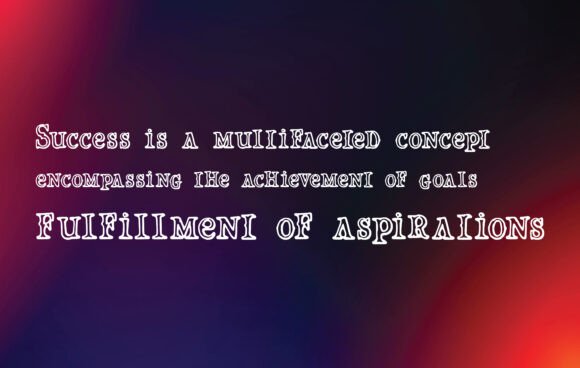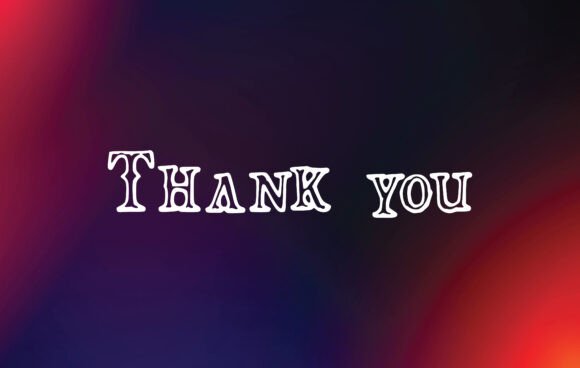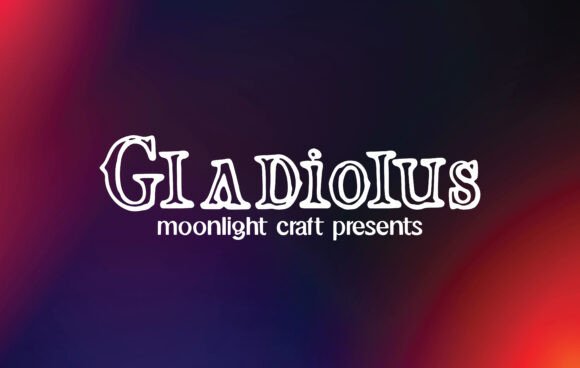
Introducing Gladiolus Font: Elevate Your Designs with Elegance and Sophistication
Are you a designer, crafty enthusiast, or a creative individual looking for a font that can add a touch of elegance and sophistication to your projects? Look no further than Gladiolus Font, a lovely and beautiful handwritten font that has the potential to take your creative ideas to the highest level.
What Makes Gladiolus Font Stand Out?
Gladiolus Font is a unique and stylish handwritten font that boasts a distinctive charm, making it perfect for a wide range of design applications. Its elegant and refined appearance makes it an excellent choice for creating eye-catching logos, branding materials, and quotes that are sure to leave a lasting impression.
One of the standout features of Gladiolus Font is its versatility. Whether you’re working on a modern and trendy design or a more traditional and classic look, this font adapts seamlessly to any style or theme. Its flowing lines and delicate strokes add a touch of sophistication and whimsy, making it perfect for designs that require a bit of flair.
Why Choose Gladiolus Font?
So, why should you choose Gladiolus Font for your design projects? Here are just a few compelling reasons:
- Elegant and Refined Appearance: Gladiolus Font has a beautiful, handwritten appearance that adds a touch of elegance and sophistication to any design.
- Versatility: This font is perfect for a wide range of design applications, from modern and trendy to traditional and classic.
- Easy to Read: Despite its elegant appearance, Gladiolus Font is easy to read, making it perfect for body text and quotes.
- Unique and Distinctive: Gladiolus Font has a unique and distinctive style that sets it apart from other fonts, ensuring your designs stand out from the crowd.
How to Use Gladiolus Font in Your Designs
Gladiolus Font is incredibly easy to use and can be incorporated into a wide range of design projects, including:
- Logos and Branding: Create eye-catching logos and branding materials that showcase your brand’s personality and style.
- Quotes and Posters: Add a touch of elegance and sophistication to your quotes and posters with Gladiolus Font.
- Social Media Graphics: Elevate your social media graphics with this beautiful and stylish font.
- Wedding and Event Stationery: Add a touch of romance and whimsy to your wedding and event stationery with Gladiolus Font.
Tips and Tricks for Getting the Most Out of Gladiolus Font
To get the most out of Gladiolus Font, here are a few tips and tricks to keep in mind:
- Experiment with Font Sizes: Gladiolus Font looks great in a variety of font sizes, so don’t be afraid to experiment to find the perfect size for your design.
- Pair with Other Fonts: Gladiolus Font pairs beautifully with other fonts, so try combining it with a bold font for headings and a clean font for body text.
- Use in Combination with Images: Gladiolus Font looks great in combination with images, so try using it to add text to your photos or illustrations.
In conclusion, Gladiolus Font is a beautiful and elegant handwritten font that has the potential to elevate your designs to new heights. Its versatility, unique style, and ease of use make it perfect for a wide range of design applications, from logos and branding to quotes and social media graphics. So why wait? Download Gladiolus Font today and start creating stunning designs that showcase your creativity and style!